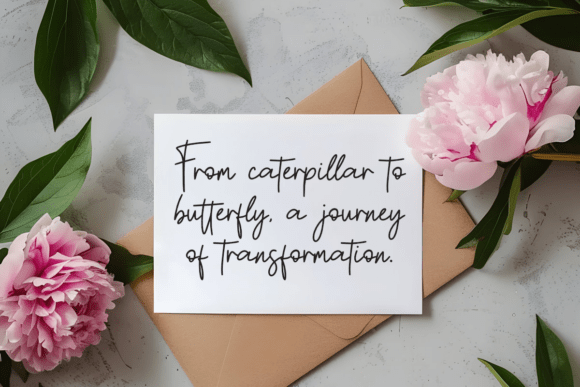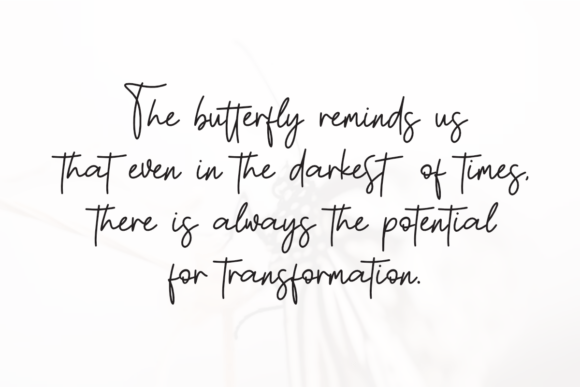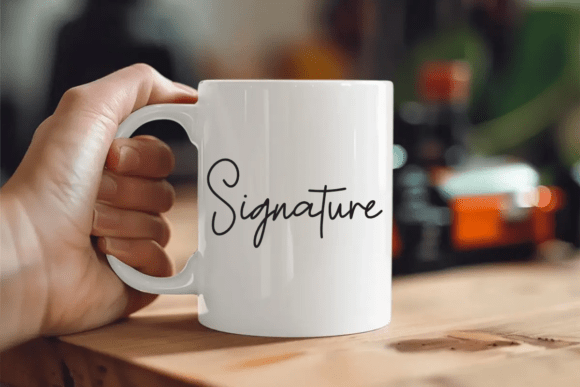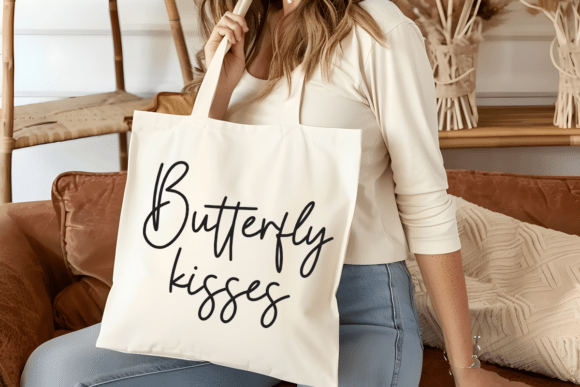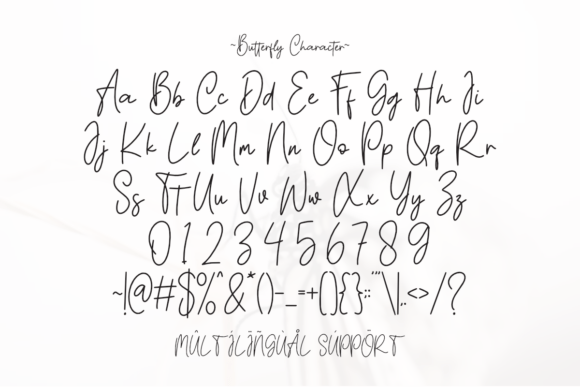
As designers, we’ve all been there – staring at a blank page, trying to bring a concept to life. But what if you could capture the essence of a fleeting moment, a whispered secret, or a gentle breeze on a summer day? That’s exactly what the Butterfly Font does – it brings a sense of playfulness and romance to your designs, making them truly unforgettable.
With its sweet and cursive signature handwritten style, the Butterfly Font is perfect for adding a touch of elegance and whimsy to your projects. Whether you’re working on a branding campaign, a wedding invitation, or a marketing promotion, this font is sure to make your designs stand out from the crowd. Its versatility and charm make it a valuable asset for designers looking to add a little extra magic to their work.
Key Features of Butterfly Font
- Unique Characteristics: The font features a unique blend of elegance and whimsy, with delicate flourishes and subtle nuances that set it apart from more traditional font styles.
- Font Variations: The font family includes multiple styles, such as Regular, Bold, Italic, and Bold Italic, offering designers a range of options to suit different design requirements and moods.
Butterfly Font Review
As a designer, I was excited to dive into the Butterfly Font and see what it had to offer. Here are my honest thoughts:
- ✨ Unique Character: The Butterfly Font has a distinctive, whimsical feel to it. It’s perfect for adding a touch of personality to your designs.
- ✨ Customization Options: The font comes with a range of variations, from bold and playful to delicate and elegant. This makes it easy to find the perfect look for your project.
- ✨ Legibility: Despite its ornate nature, the Butterfly Font is surprisingly easy to read. This is a major plus for designers who need to ensure their text is accessible to a wide audience.
- ⚠️ Limited Kerning: In some cases, the kerning (the spacing between letters) can be a bit off. This can make text look a bit wonky, especially at smaller font sizes.
- ⚠️ Limited Language Support: Unfortunately, the Butterfly Font doesn’t support as many languages as some other fonts on the market. This may be a problem for designers working on international projects.
The Butterfly Font is a great choice for designers looking to add some personality to their projects. While it has some limitations, its unique character and customization options make it a standout. With a bit of tweaking and some careful selection of font sizes, I think the Butterfly Font could be a great addition to any designer’s toolkit.
Common use cases for the Butterfly Font include:
– Children’s book illustrations
– Handmade cards and gift tags
– Creative business logos and branding
– Tips for getting the most out of the font include:
– Use it sparingly to create visual interest
– Pair it with bold or cursive fonts for contrast
– Experiment with different font sizes and colors to achieve the desired effect
Alternatives to Butterfly Font
Great Vibes is a beautiful, elegant script font perfect for creating a whimsical and romantic atmosphere. It’s ideal for use in wedding invitations, branding, and other designs where a touch of sophistication is required.
Compared to Butterfly Font, Great Vibes is more refined and less ornate, making it a great choice for designs where simplicity and elegance are key. While Butterfly Font is more playful and childlike, Great Vibes exudes a sense of luxury and sophistication.